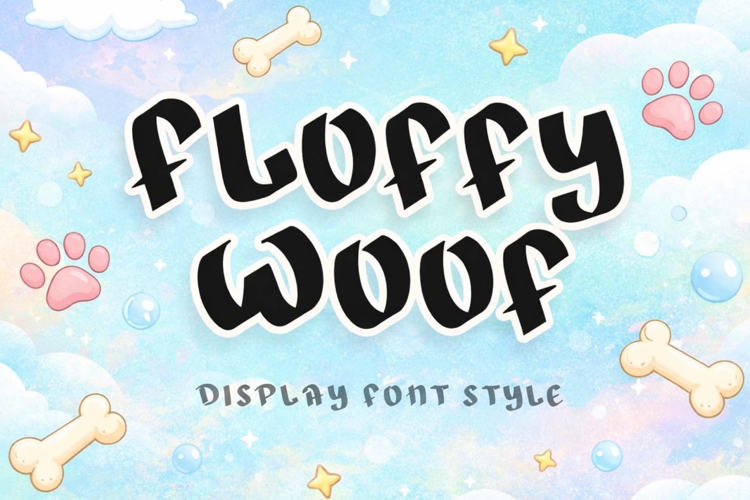
"Floffy Woof" is a fun display font. It features uppercase and lowercase letters, numbers, punctuation, and multilingual support. It's perfect for action movie titles, doggyfont, animal font, cartoon font, Halloween, Christmas, Easter, spring and summer, banners, branding, stickers, logos, patriotic text, back to school text, business branding, screen printing, tshirt designs, and more.